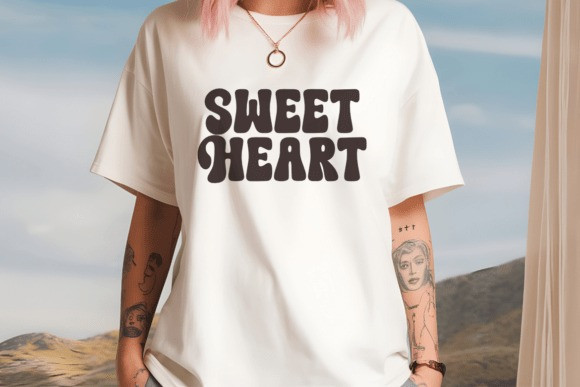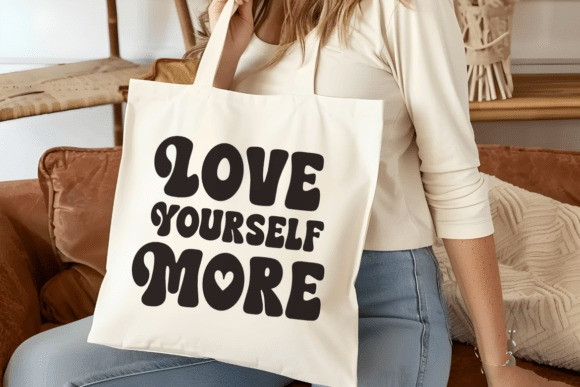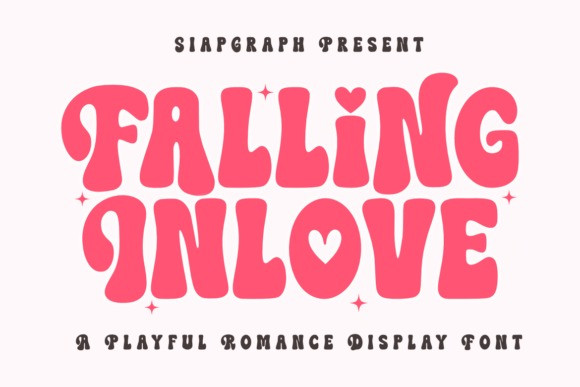
Falling Inlove Font
Falling Inlove Font is a charming, playful, and groovy display font inspired by the joyful, nostalgic aesthetic of the 70s and 80s, perfectly capturing the whimsical feeling of new romance. Its smooth, rounded edges and fun, bouncy baseline make it instantly appealing and eye-catching.
This font is a must-have for creators targeting the Valentine’s Day, Wedding, and general Love/Romance niches in the craft, POD (Print On Demand), and DIY markets.
Perfect for: crafting SVG designs, wedding invitations, engagement party decor, personalized anniversary gifts, t-shirts, mug designs, cute stickers, greeting cards, romantic quotes, social media graphics, and feminine branding. The playful style is also great for bachelorette parties and children’s apparel.
Great for holiday themes such as Valentine’s Day, Mother’s Day, Anniversaries, and any celebration of love and friendship, instantly adding a sweet, retro flair to your projects!